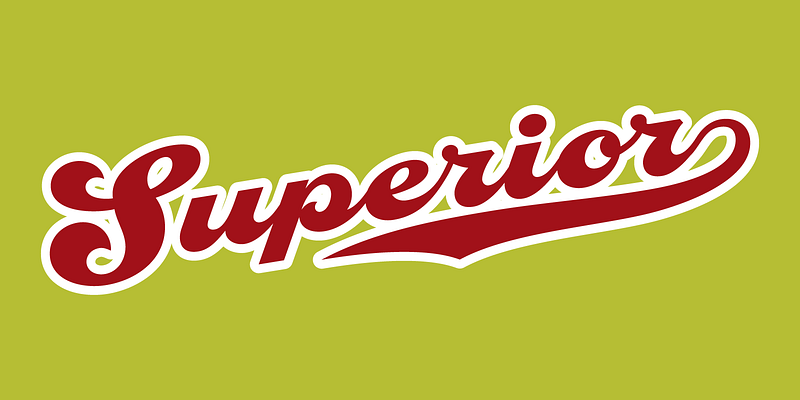
Leslie Cabarga’s script face Casey recalls “Casey at the Bat,” Ernest Lawrence Thayer’s vivid old baseball poem. Once, fat-bottomed scripts like Casey were everywhere, but they barely survived as logos for Campbell’s soup, Ford, Coca-Cola, and, of course, the Dodgers. In 2000, Emigre’s logo brought one back and popular use was on again. Cabarga’s splendid take on the swinging style restores it to current typographic usage; FB 2003–07
Zavier Cabarga has been drawing pictures and pictures of letters all his life. “Drawing requires an inherent feel for anatomy and proportion. Lettering does also, as I believe that our ancient letterforms are based upon human proportions,” Zavier said. “Inspired at first by comic book lettering, I began copying logos and display type out of magazines. At 15, I stripped up film negatives to form a crude but serviceable typositor font.”
Working under the name Handy Lettering Co., for many years Zavier designed hand lettering for advertising clients while working full-time as an illustrator. “Drawing illustrations has always seemed difficult—lettering is easy and fun,” Zavier said. “Working for the past 25 years on the Macintosh has enabled me to create computer fonts, which in many ways is the most satisfying thing I do. Typing a letter or manuscript with a font I’ve created makes me feel like God.”